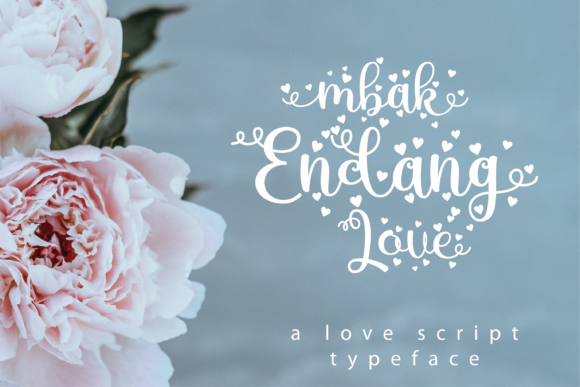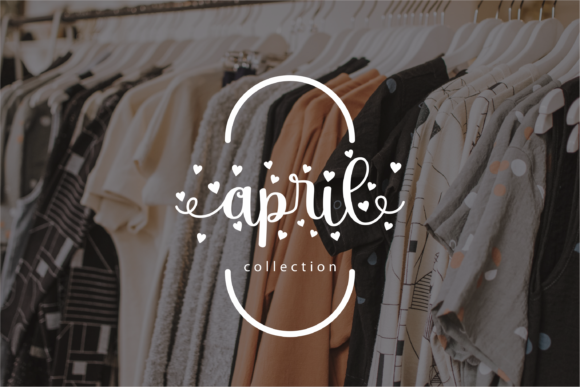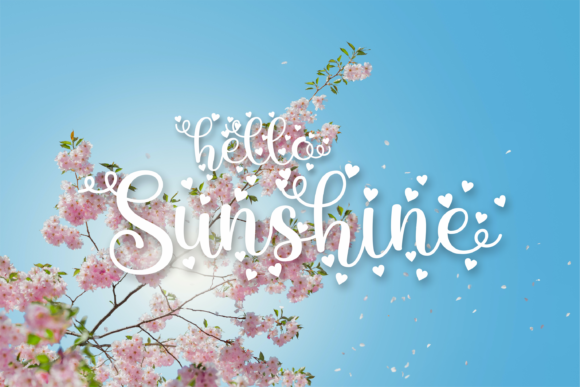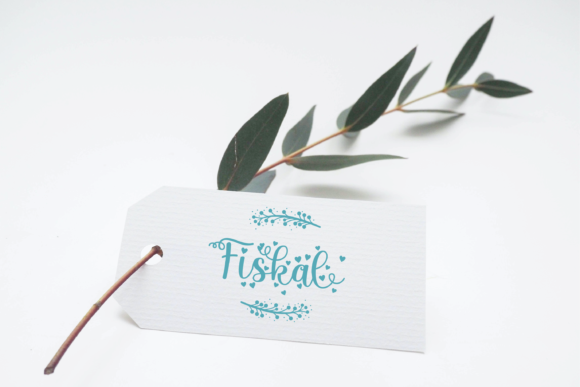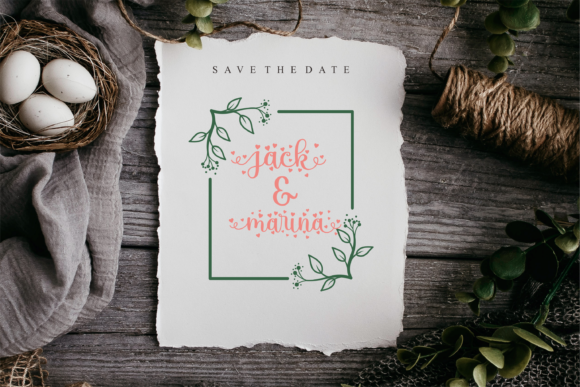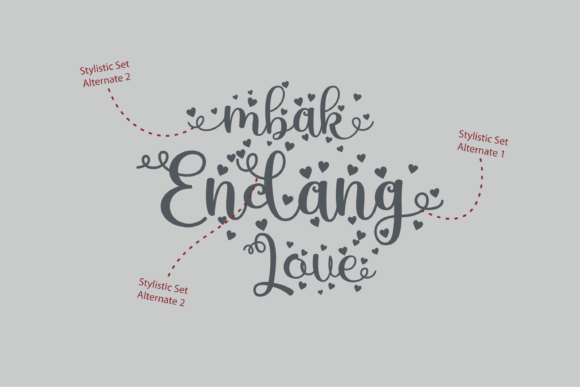
Mbak Endang Love Font
About Mbak Endang Love Font
Mbak Endang Love is a sweet, soft hand-lettered font. The playful rounded characters make it the perfect font for creating stunning art. Get inspired by Mbak Endang Love with its authentic feel and use it to create gorgeous wedding invitations, beautiful stationary art, eye-catching social media posts, and cute greeting cards.
This font is PUA encoded which means you can access all of the glyphs and swashes with ease! It also features a wealth of special features including alternate glyphs and ligatures.